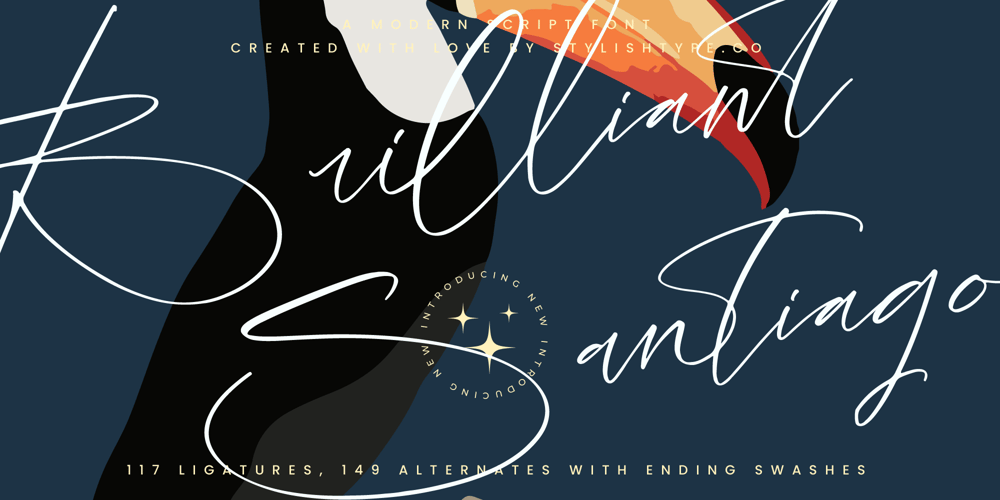
Brilliant Santiago
Brilliant Santiago font
Brilliant Santiago Font Family was designed by Heru Utama Putra and published by Stylishtype Studio. Brilliant Santiago contains 2 styles and family package options. Brilliant Santiago – Modern Script Font , from Stylishtype , Suitable for any projects such as: logos, branding projects, homeware designs, product packaging, mugs, quotes, posters, shopping bags, t-shirts, book covers, name card, invitation cards, greeting cards, label, photography, watermark, special events, and all your other luxury and beautiful projects that need a Luxury Script taste.